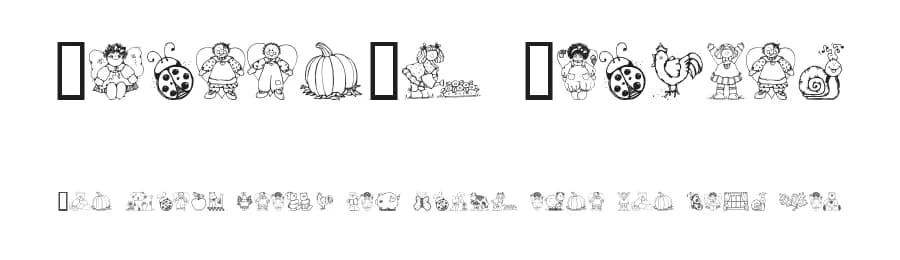
Laurie's Country is a dingbat font designed by House of Lime. It includes 30 glyphs, a regular weight, and TTF (TrueType) format. Laurie's Country is free to download; check the license details on this page before commercial use. Dingbat fonts like Laurie's Country work best for icons, ornaments, bullet points, and decorative accents.
Laurie's Country Font is a versatile dingbats font that works for both headings and body text. Pair it with a contrasting sans-serif or serif font to add visual interest and a clear distinction between titles and body copy.
Laurie's Country Font is a dingbats typeface by House of Lime, ideal for logos, invitations, branding, and creative projects.